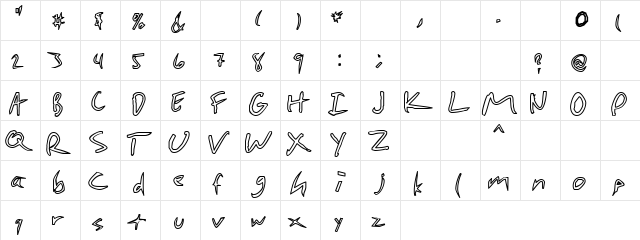
Disse Oopes Regular Font Preview
Disse Oopes Regular
Design Context for Disse Oopes Typeface
Disse Oopes is a composed and adaptable typeface that performs quietly and consistently across a wide range of design contexts.